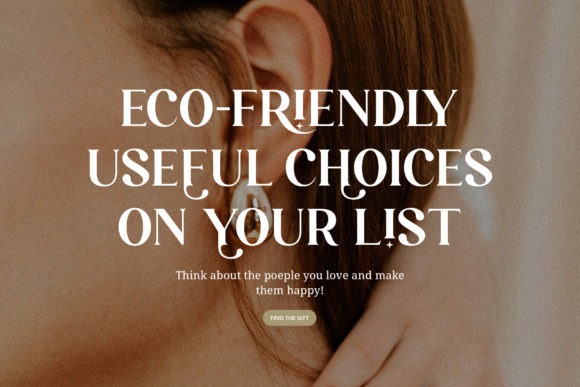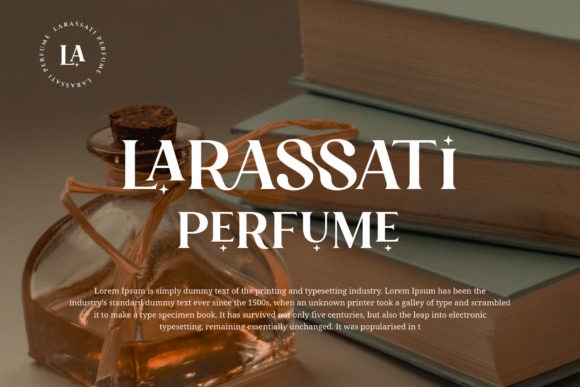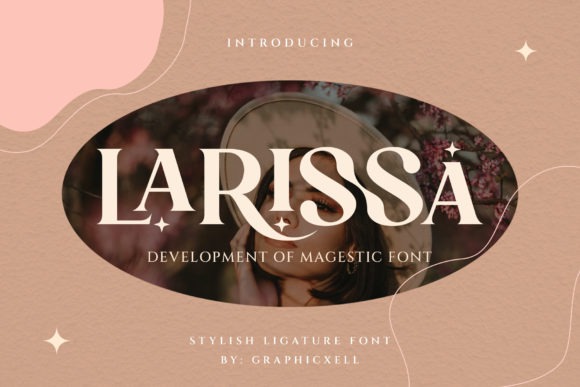
Larissa Font
Larissa Serif Font is an elegant, bold lettered and distinct serif font inspired by the famous minimalist logo perfect for the purposes of designing templates, brochures, videos, advertising branding, logos and more. This font is PUA encoded which means you can access all of the glyphs and swashes with ease!